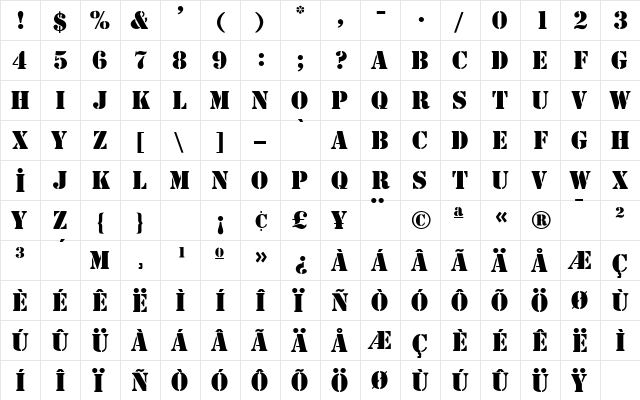
Stamp Plain
Design Context for Stamp Typeface
Stamp has the rough pragmatism of spray-painted stencil signage, adding a raw, street-level authenticity to designs.
A strong choice for packaging that needs edge, warehouse aesthetics, and rough-and-ready visual identities.
Pro Tip: Use Stamp at large sizes on packaging, posters, or apparel where the stencil cutaways read clearly. Avoid small sizes where those gaps become visual noise.